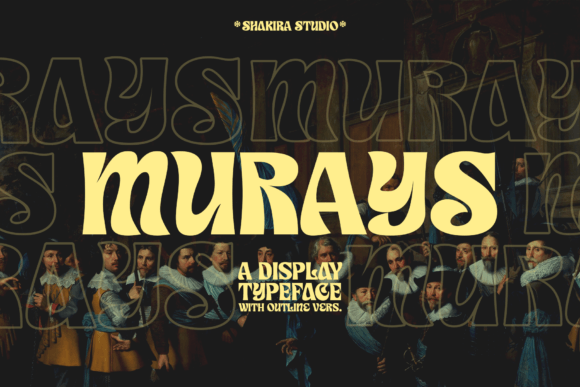
Introducing Murays Font, the perfect choice for all your creative ventures! Created by Shakira Studio, this Retro Display Serif Font is designed to captivate and inspire. With its bold and striking appearance, Murays Font will elevate your designs and leave a lasting impression.
Make a statement with bold, gorgeous headlines that demand attention. Murays Font's elegant curves and contrasting lines add a touch of vintage flair to any project. Whether you're designing logos, holiday cards, wedding invitations, or advertisements, this font is guaranteed to make your creations stand out from the crowd.
But Murays Font isn't just about looks. It's also incredibly versatile and user-friendly. Thanks to its PUA encoding, accessing the impressive range of glyphs and ligatures is a breeze. Unlock a world of creative possibilities and effortlessly enhance your designs with unique and eye-catching elements.
Imagine the impact your event menus could have with Murays Font. Transform ordinary lists into extraordinary works of art that leave a lasting impression on your guests. With its captivating and timeless aesthetic, this font is the perfect choice for anyone looking to create a memorable dining experience.